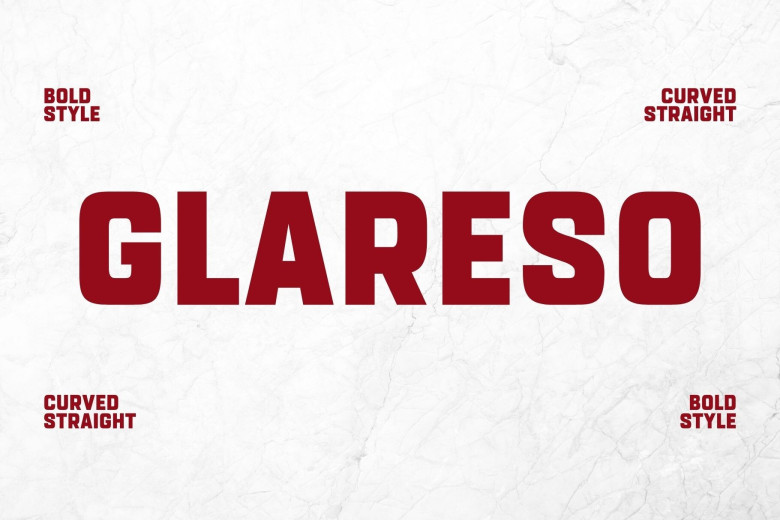
Glareso Font
Glareso Type is a modern and striking sans serif font designed to attract attention. Boasting crisp lines and an elegant style, Glareso adds contemporary elegance to your designs – perfect for stylish branding, headlines or simply making an impactful statement about modern simplicity. Use it in designs now with Glareso for maximum effect.
Glareso Sans Serif Font